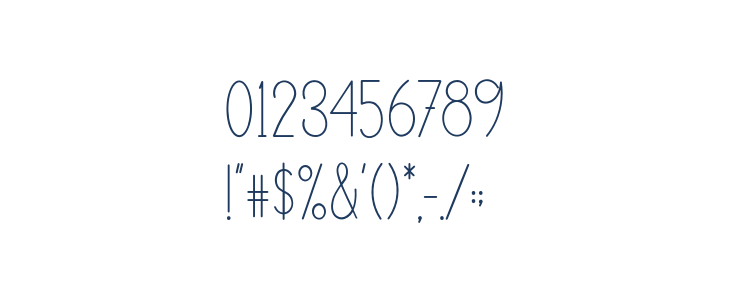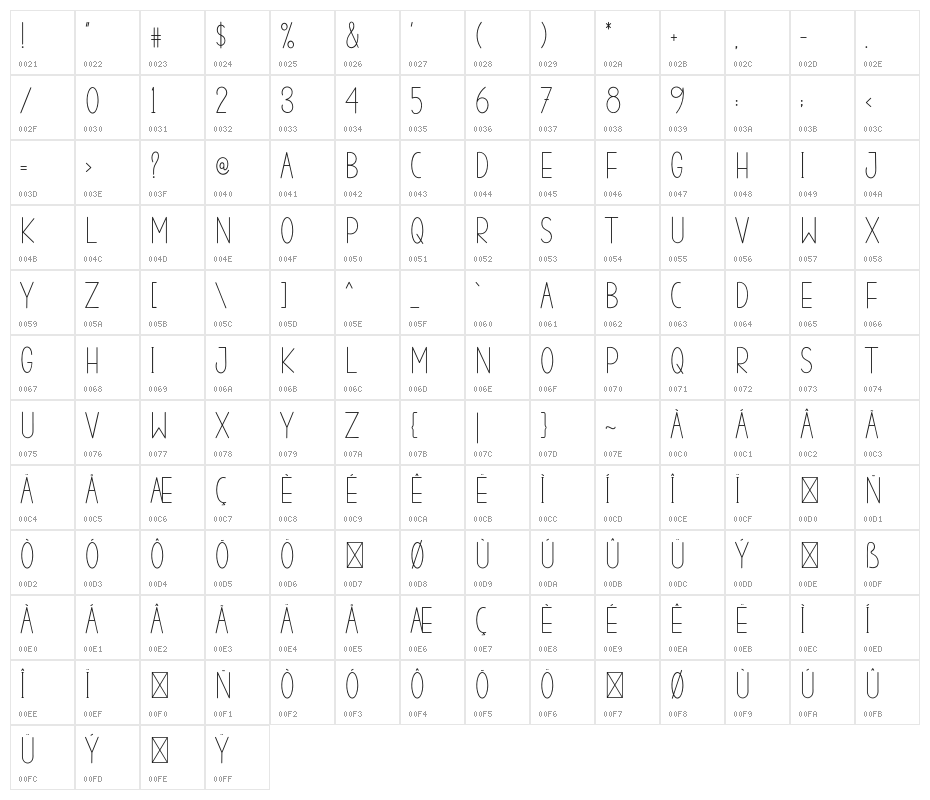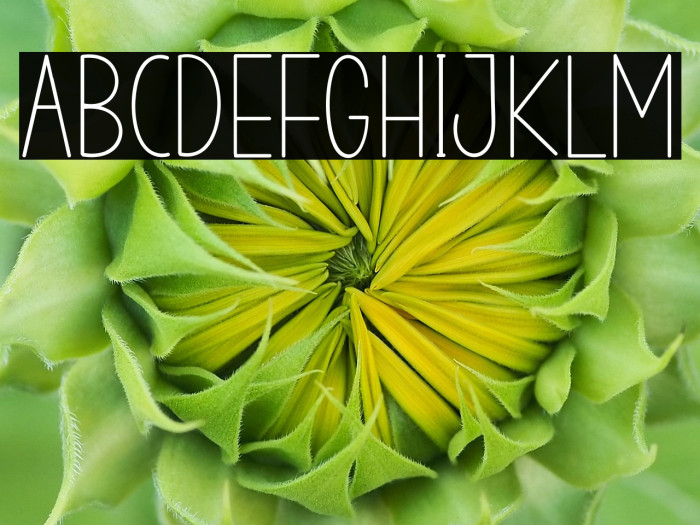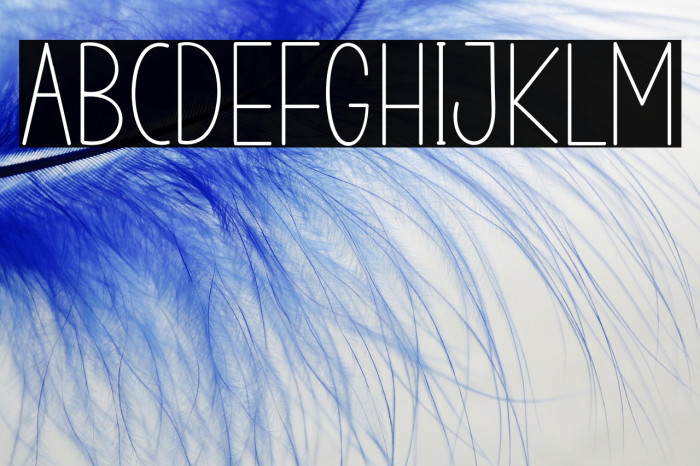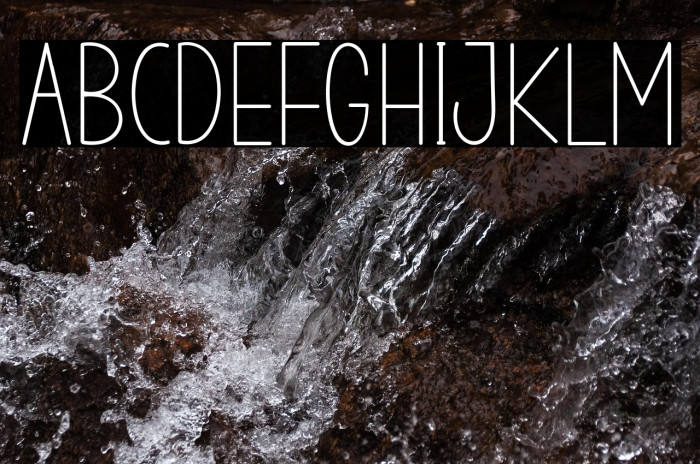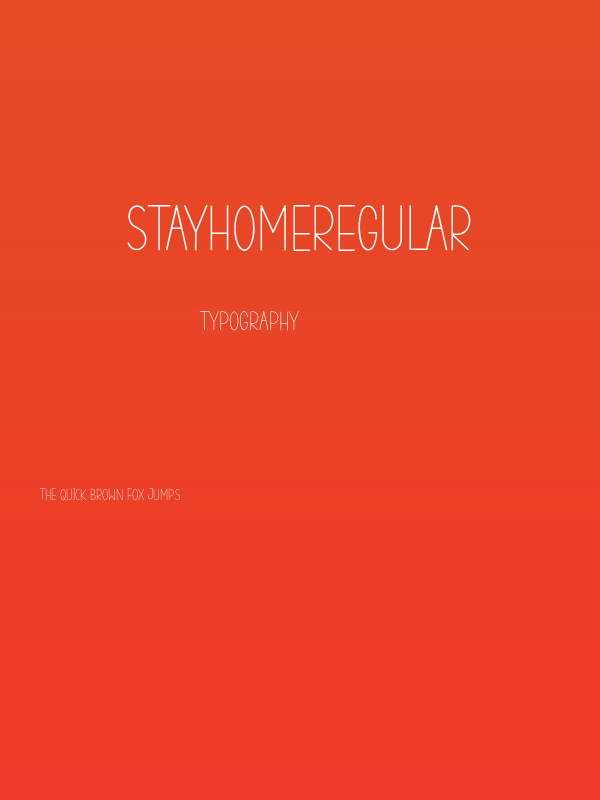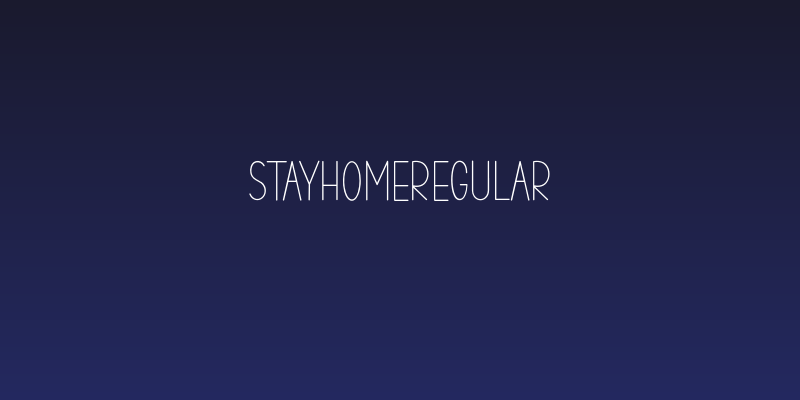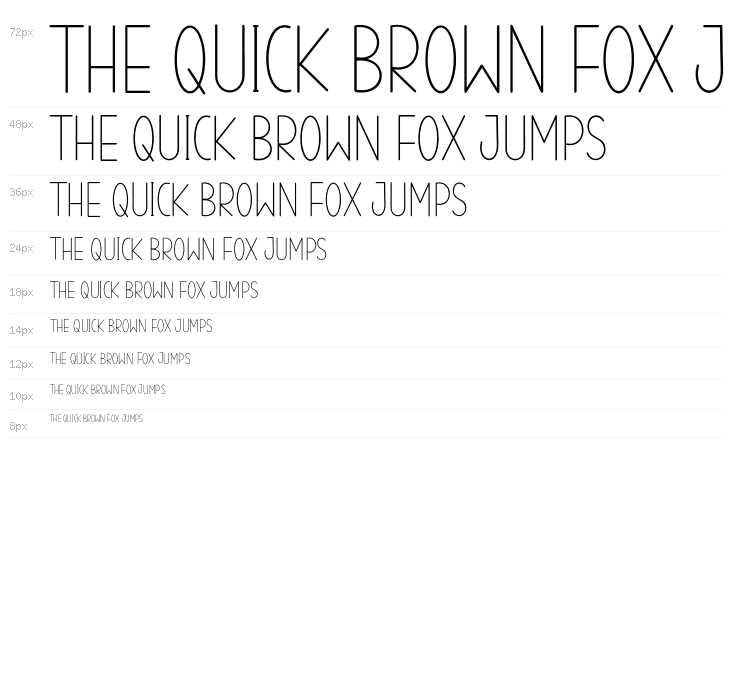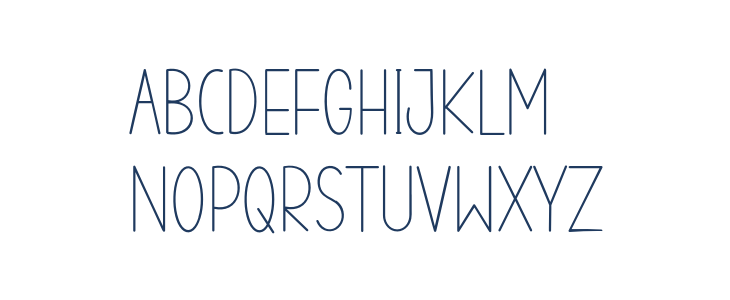
STAYHOMERegular Font
STAYHOMERegular Description
This font features a clean, minimalist design with tall, narrow letterforms. The characters are evenly spaced, providing a modern and airy feel. The strokes are consistent in thickness, giving it a uniform appearance. The uppercase and lowercase letters maintain a cohesive style, with rounded edges and a slight geometric influence. The numerals are clear and legible, matching the overall aesthetic. Special characters are included, maintaining the same sleek and contemporary look. This font is versatile, suitable for a variety of design projects.